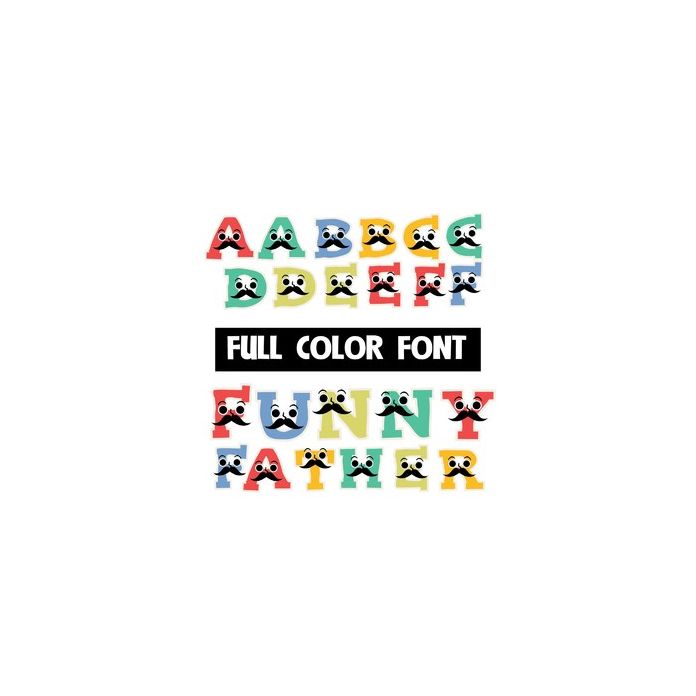
This full-color font features mustache and eyes on all the colorful lettering. There is alt cases in alternate colors that you can access through Silhouette's glyph map.